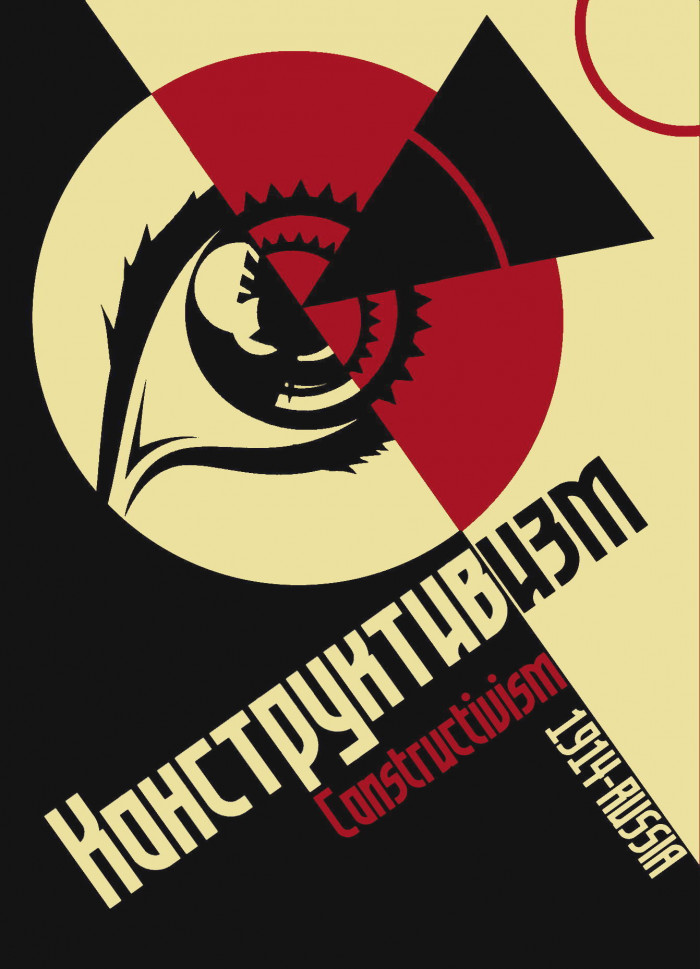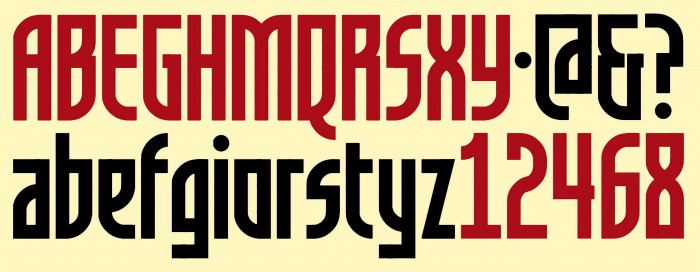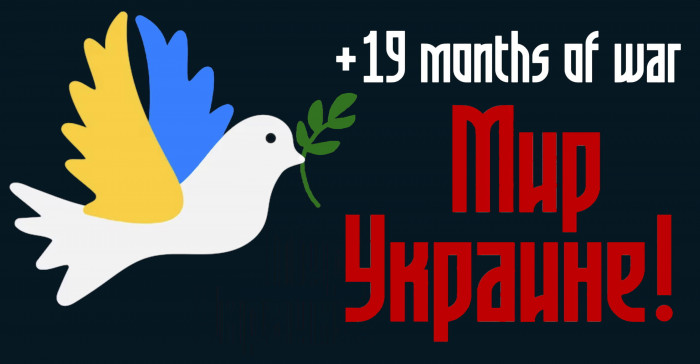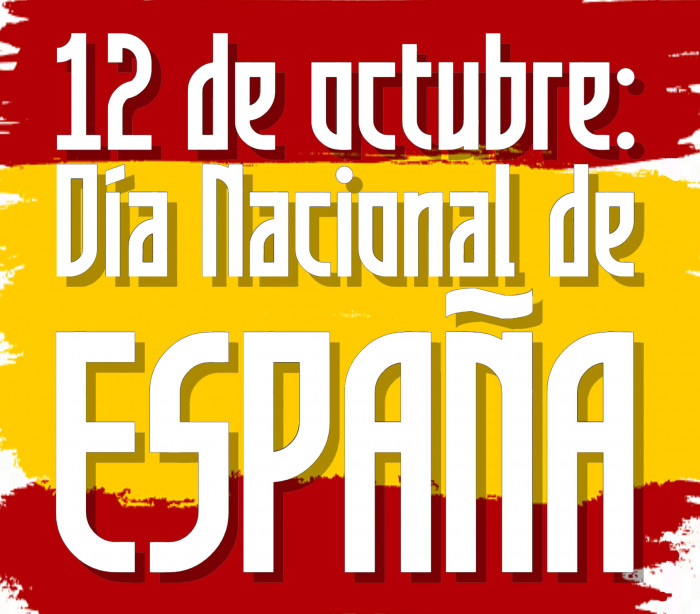
• Made with the well-known Grafilone typeface (by Bo Berndal) in mind, but more elongated and avoiding its curious roughness. In addition to the basic set of glyphs, some special ones have been added and the Cyrillic alphabet has also been included. The ligatures "ff" and "tt" are located on the characters "ff", "fi" and "fl". Enjoy it, please.
Made with the well-known Grafilone typeface (by Bo Berndal) in mind, but more elongated and avoiding its curious roughness. In addition to the basic set of glyphs, some special ones have been added and the Cyrillic alphabet has also been included. The ligatures "ff" and "tt" are located on the characters "ff", "fi" and "fl". Enjoy it, please.
The currency symbol is definitely a unique one, one that I haven't seen in typography before.
Beautiful font.  I would not say that it is strictly constructivist, there are too many roundings, rather it refers to Old Slavonic fonts and Vyaz.  And in Ukraine they also don’t really like the Soviet part of history now for obvious reasons.  So I would say that the font is still good and resembles the plasticity of the Ukrainian coat of arms.  I think it’s worth adding the Ukrainian letters of the alphabet Ґґ, Єє, Іі and Її.
Added Ґґ, Єє, Іі and Її.
Yeah, I agree! Also, add ₽ and ₴.
Congrats on the TP, nice Cyrillic and awesome ß! :)